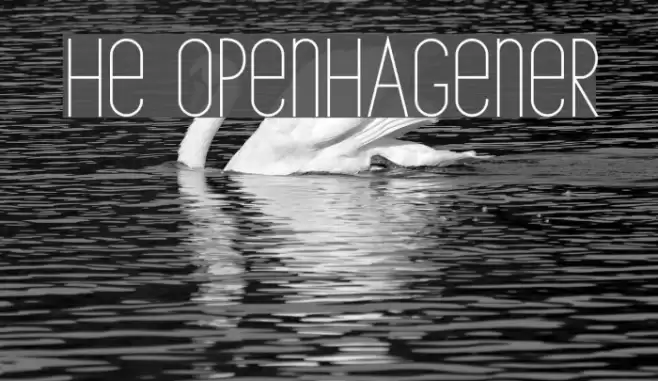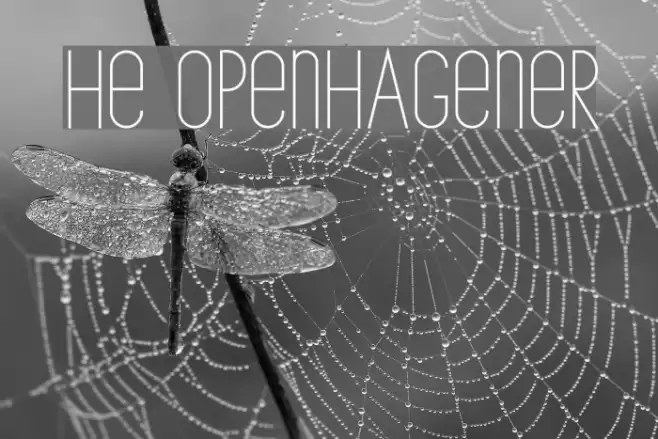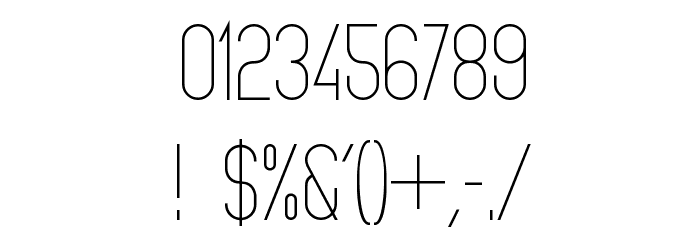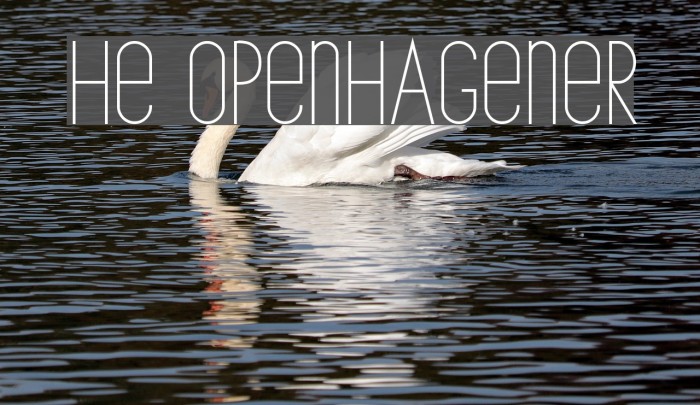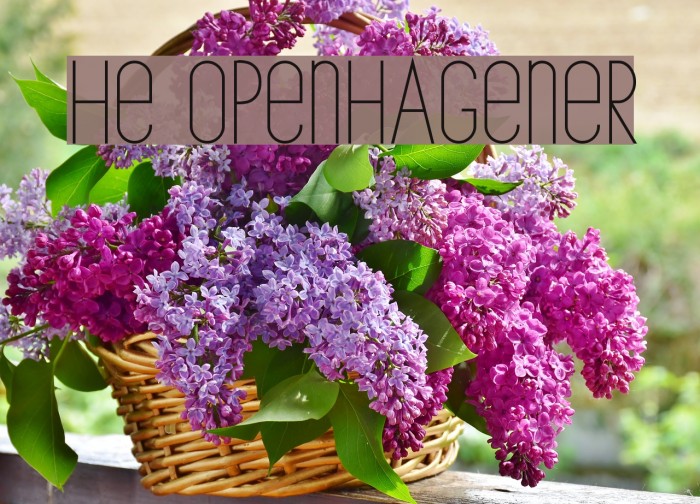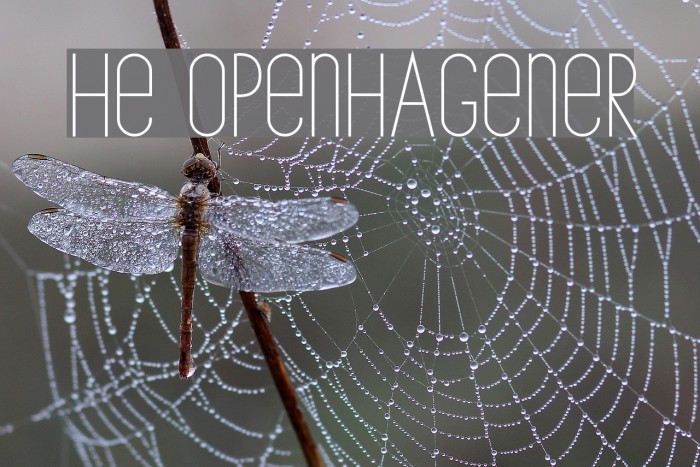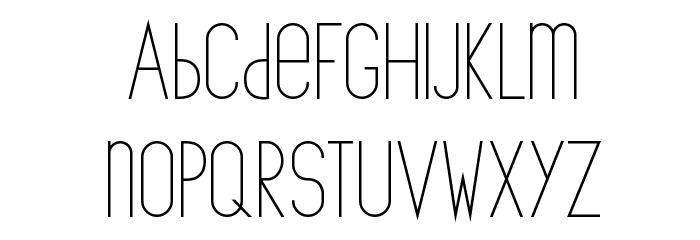
The Copenhagener Font
The Copenhagener Description
This font features a sleek and modern design with tall, narrow characters that exude elegance and sophistication. The uppercase and lowercase letters maintain a consistent height, contributing to a uniform appearance. The numbers and special characters are designed with the same thin strokes, ensuring a cohesive look across all elements. The font's minimalist style is accentuated by its clean lines and lack of embellishments, making it ideal for contemporary design projects. Its geometric structure and high legibility make it suitable for a variety of applications, from branding to editorial design.
A sleek, modern font with tall, narrow characters and a minimalist design from Uncategorized fonts.
- Proposed Projects: Ideal for branding, editorial design, and modern web design projects.
- Use Case: Headlines, Logos, Editorial design